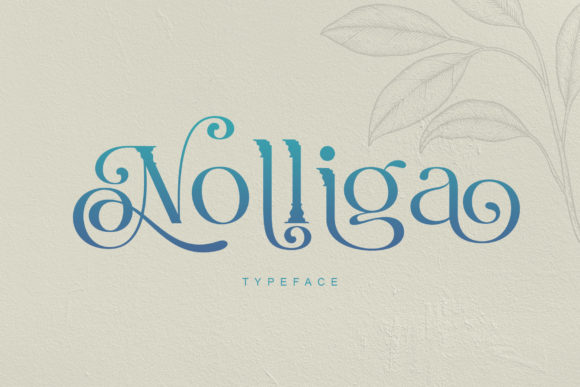
Journey into the world of typography with Nolliga, the font that exudes grace and sophistication. This meticulously designed display font possesses an air of elegance, making it the perfect choice for creating captivating headlines, logos, and designs that demand attention. With Nolliga, your words will dance across the page, captivating your audience with its enchanting allure.
Nolliga's inherent charm lies in its ability to transform ordinary text into a visual masterpiece. Its carefully crafted curves and delicate serifs evoke a sense of timeless beauty, effortlessly elevating your designs to new heights of refinement. Whether you're creating a professional resume, a heartfelt love letter, or an eye-catching social media post, Nolliga will lend its touch of brilliance to make your words shine.
Unleash your creativity with Nolliga's versatile nature. This font seamlessly adapts to a wide range of design aesthetics, from classic and traditional to modern and minimalist. Its inherent versatility allows it to blend harmoniously with various color palettes and backgrounds, making it the perfect choice for designers of all skill levels. Whether you're a seasoned professional or just starting your design journey, Nolliga will empower you to create stunning visuals that leave a lasting impression.
Experience the ease and convenience of Nolliga's PUA encoding. This innovative feature grants you effortless access to the font's entire glyph and swash collection, enabling you to incorporate intricate embellishments and flourishes into your designs with just a few clicks. Unleash your imagination and let your creativity soar as you explore the boundless possibilities that Nolliga offers.
Nolliga is more than just a font; it's an invitation to embark on a creative odyssey. With its enchanting beauty and remarkable versatility, this font will transform your designs into captivating works of art. Embrace the allure of Nolliga today and elevate your visual creations to new heights of excellence.